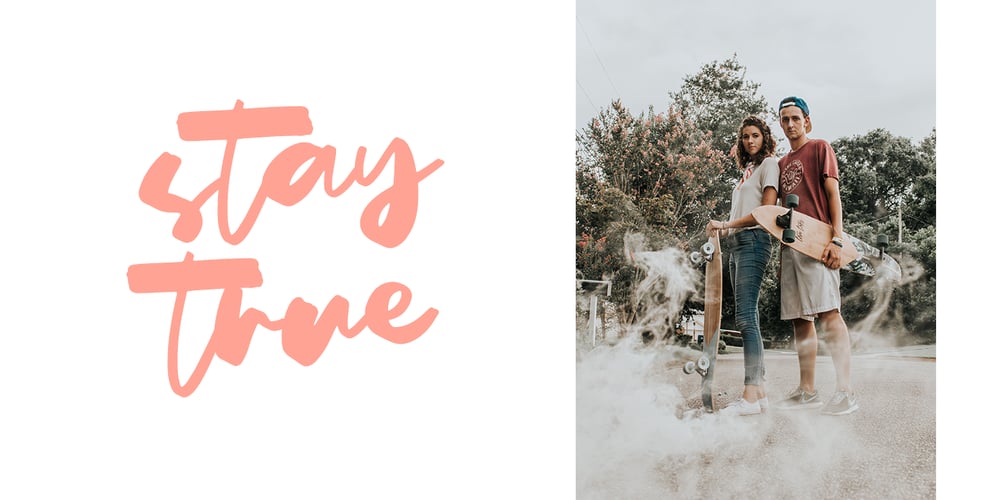
One Feather Font Family was designed by Dmitrii Chirkov and published by Supfonts. One Feather contains 1 styles and family package options. Hello dears! My new font with unpredictable stroke width looks very fresh and interesting. Have fun ๐ Feather will look beautiful on holiday invitations, wedding invites and stationery, logos, and more. Test it out below to see how it could look for your next project! Includes: Uppercase and lowercase Numbers and punctuation Foreign language support Check out my blog: https://www.instagram.com/zloillev pinterest.com/dmitriychirkov7